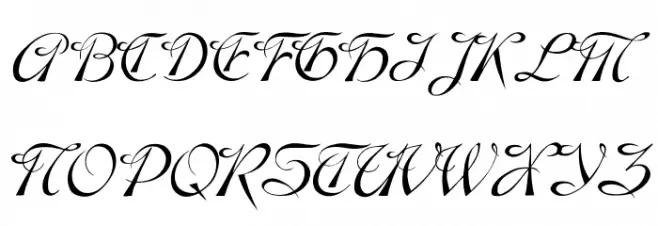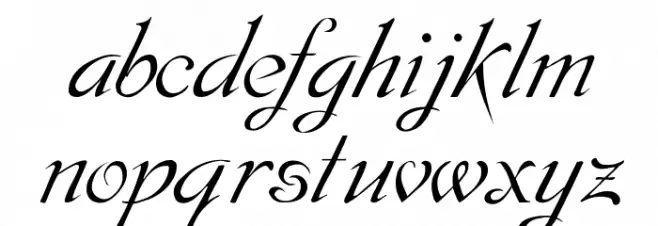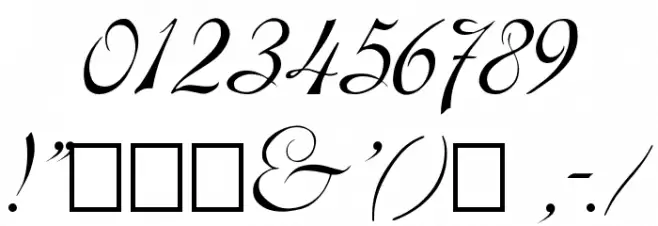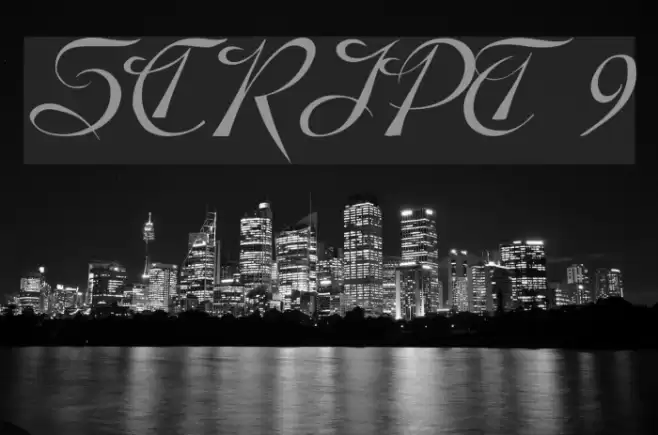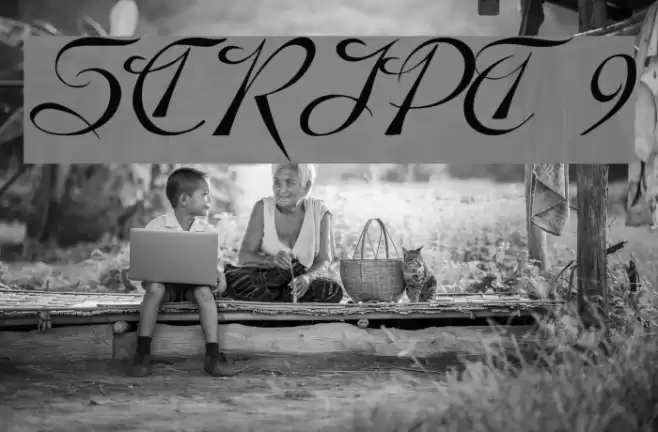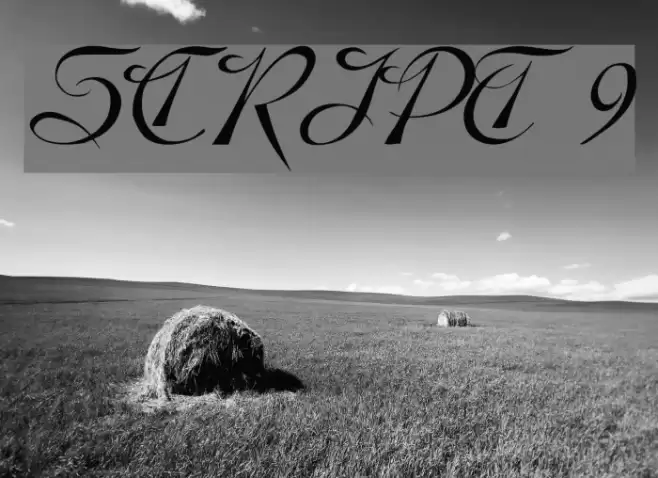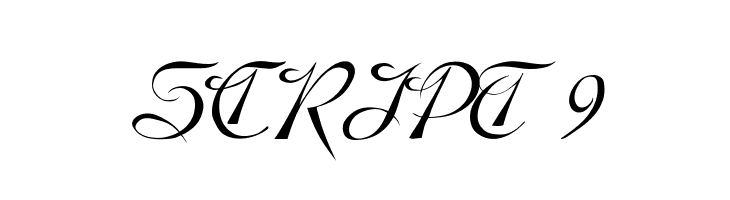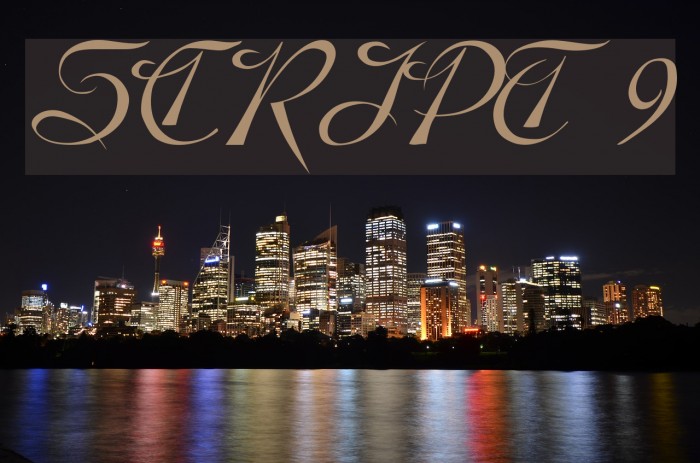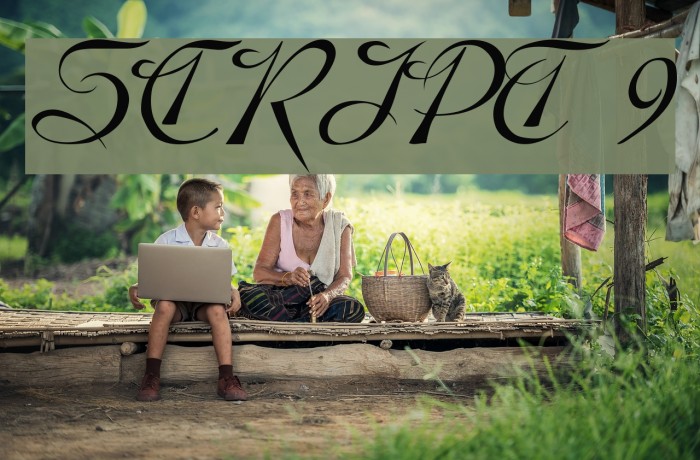
SCRIPT 9
This elegant script font features a flowing, cursive style with intricate loops and flourishes. The uppercase letters are particularly ornate, with sweeping curves that give a sense of movement and grace. The lowercase letters maintain a consistent slant, enhancing the fluidity of the text. Numbers and special characters are designed with the same attention to detail, ensuring a cohesive look across all elements. The font's overall appearance is sophisticated and refined, making it ideal for formal invitations, branding, and decorative purposes.
An elegant, flowing script font with intricate loops and flourishes.
- Proposed Projects: Ideal for wedding invitations, luxury branding, greeting cards, and decorative signage.
- Category: Script
- Contrast: High
- Overall Style: Elegant, Decorative
- Use Case: Headlines, Invitations, Logos